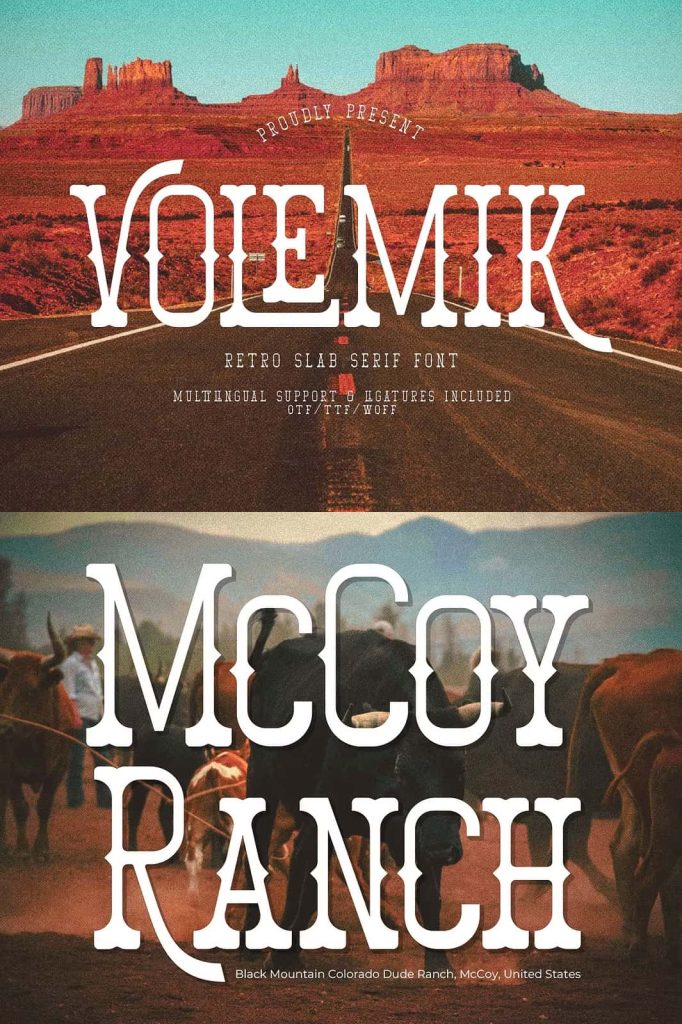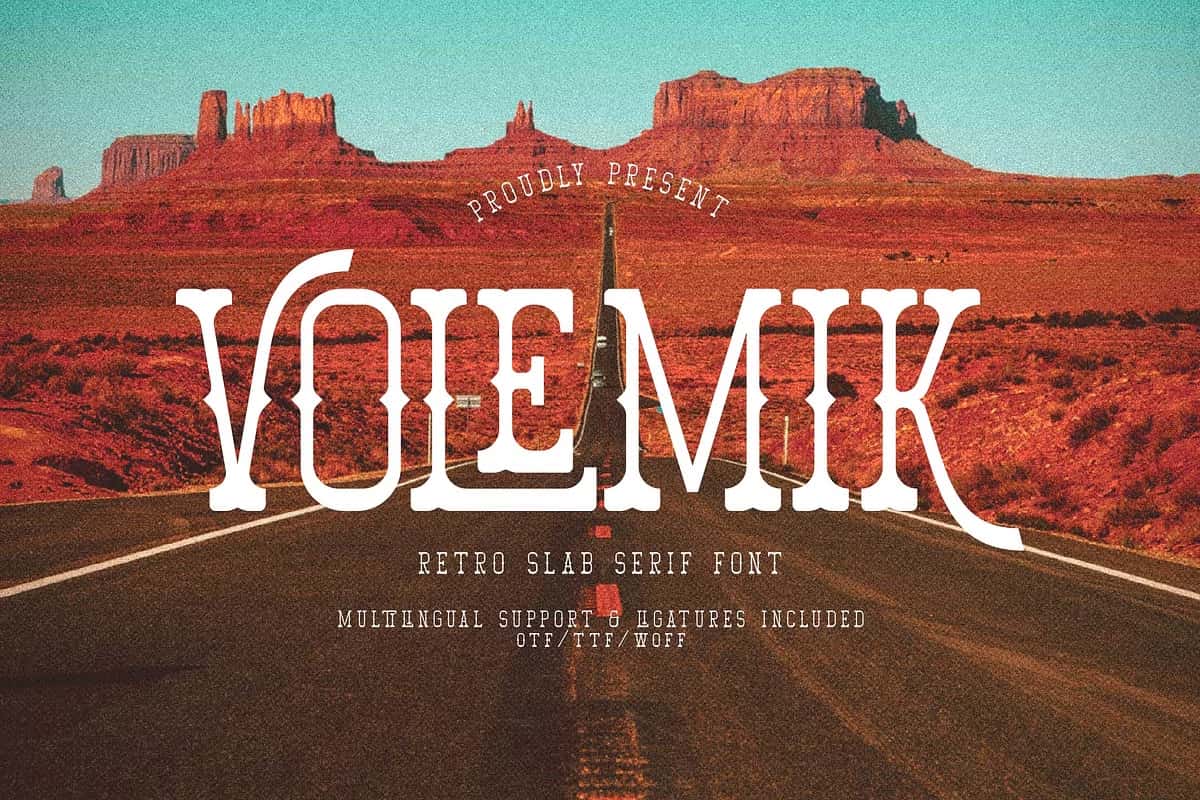
Volemik: A Bold Retro Slab Serif Font by Denustudios
Volemik is a distinctive retro slab serif font created by Denustudios for designers who want to make a strong visual statement. Built with bold letterforms and confident structure, Volemik brings vintage character and timeless appeal to modern design projects. Its solid slab serifs and balanced proportions allow it to stand out across a wide range of applications, making it a reliable choice for both professional and creative use.
A Retro Slab Serif Font with Strong Personality
Volemik captures the essence of classic retro typography while maintaining the flexibility required for contemporary design. The slab serif style delivers weight, stability, and clarity, giving each letter a powerful presence. This structure makes Volemik highly legible while preserving the nostalgic charm associated with retro design.
The font’s bold strokes and confident forms create an immediate visual impact. Volemik does not fade into the background; it commands attention and reinforces brand identity. Whether used for headlines, titles, or logos, the font communicates strength, authenticity, and character.
Designed for Versatile Creative Applications
Volemik adapts seamlessly to a wide variety of creative and commercial projects. Its retro slab serif aesthetic works particularly well for logos and branding projects, where strong typography plays a crucial role in recognition and memorability. The font enhances brand visuals by adding a sense of heritage and reliability.
Beyond branding, Volemik performs exceptionally in product packaging and homeware designs. It adds a bold typographic voice to mugs, shopping bags, labels, and decorative items. The font’s structure ensures clarity even when printed on textured or small-scale surfaces, making it practical as well as visually appealing.
Perfect for Print, Apparel, and Promotional Design
Volemik is an excellent choice for apparel design, including t-shirts and merchandise. Its bold slab serif forms translate well onto fabric, producing clean and impactful results. Designers can rely on the font to maintain its integrity across various printing methods and materials.
For promotional materials such as posters, quotes, and special event graphics, Volemik delivers strong emphasis and visual clarity. The font’s retro character adds personality and warmth, helping designs connect emotionally with audiences while remaining professional and structured.
Ideal for Editorial and Stationery Projects
Volemik extends its versatility into editorial and stationery design. It works effectively on book covers, providing a bold and confident typographic foundation that draws readers in. The retro slab serif style supports both modern and classic themes, making it suitable for a wide range of genres.
In stationery applications, such as name cards, invitation cards, and greeting cards, Volemik adds character and distinction. The font enhances readability while contributing a unique visual tone that sets designs apart. Its strong presence helps messages feel deliberate and thoughtfully crafted.
Reliable for Photography, Labels, and Watermarks
Designers can also use Volemik for photography overlays, watermarks, and labels. The font remains legible over complex backgrounds, ensuring that branding elements stay clear and recognizable. This makes it an effective solution for creative professionals who need consistent typography across visual assets.
Volemik performs well in both digital and print environments, maintaining its bold appearance on screens and on paper. Its adaptability allows designers to build cohesive visual systems across multiple platforms.
Why Choose Volemik Retro Slab Serif Font
Volemik stands out as a retro slab serif font that combines bold design with practical versatility. Created by Denustudios, it offers strong character, clear readability, and timeless retro appeal. By choosing Volemik, designers gain a dependable typeface that enhances logos, branding, packaging, apparel, and countless creative projects with confident style and lasting impact.